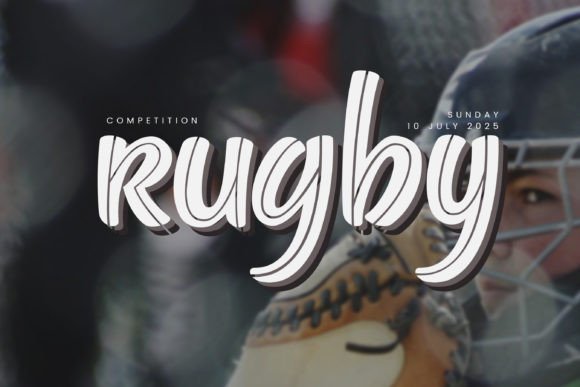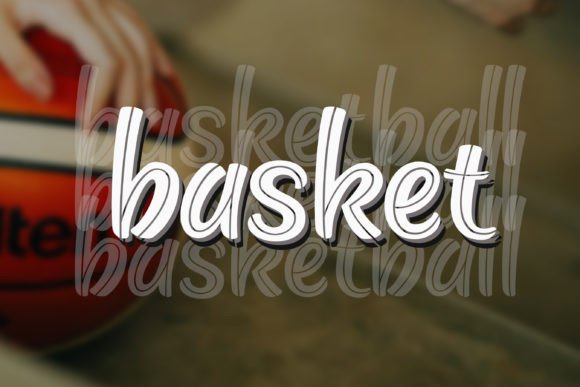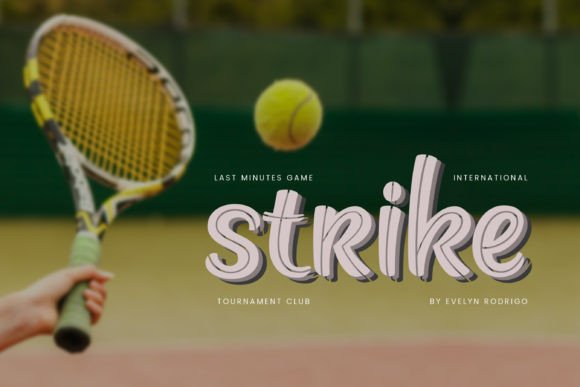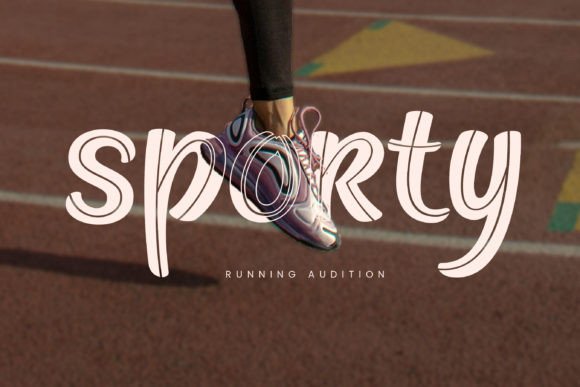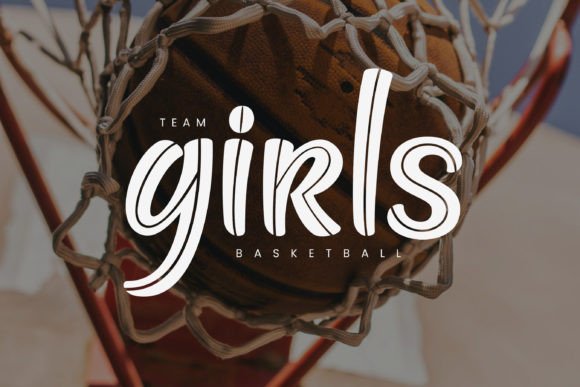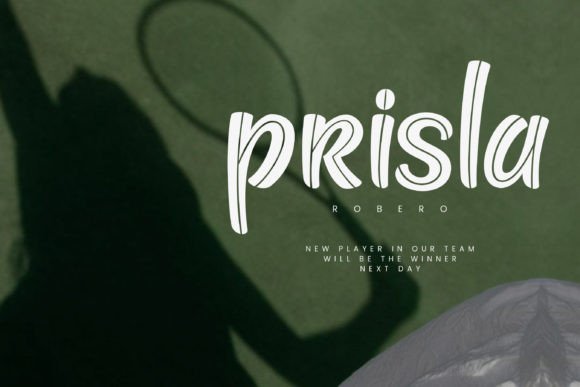
Introduction to Santino Ripers Font
Introducing “Santino Ripers,” a bold and dynamic font designed to celebrate the strength and elegance of women in sports.
With its two versatile styles, Regular and Line, Santino Ripers is perfect for sports branding, apparel, promotional materials, and more, ensuring your designs radiate confidence and energy .